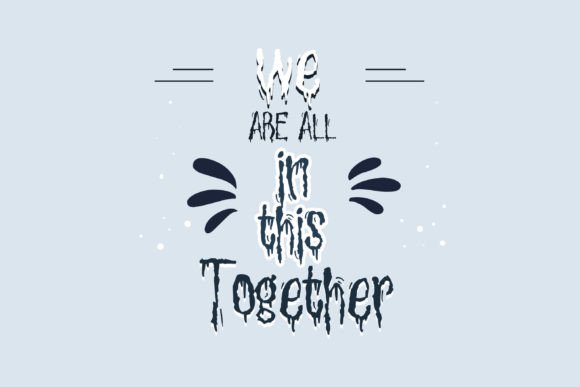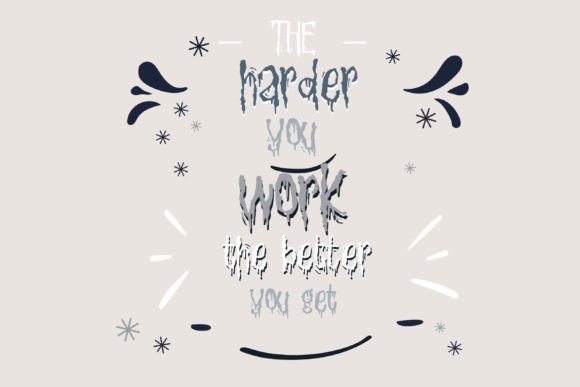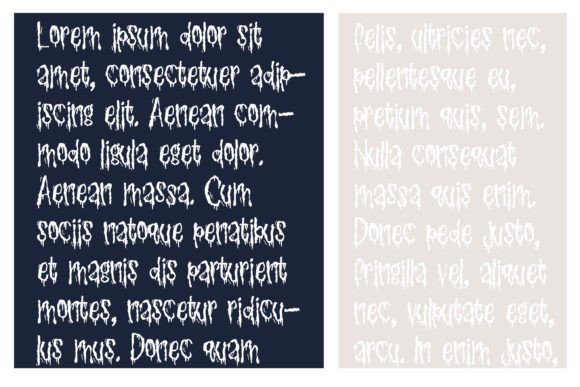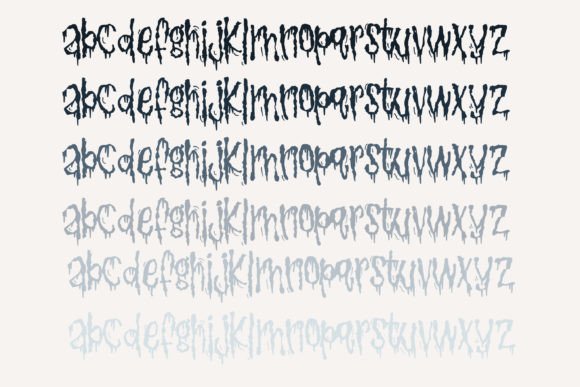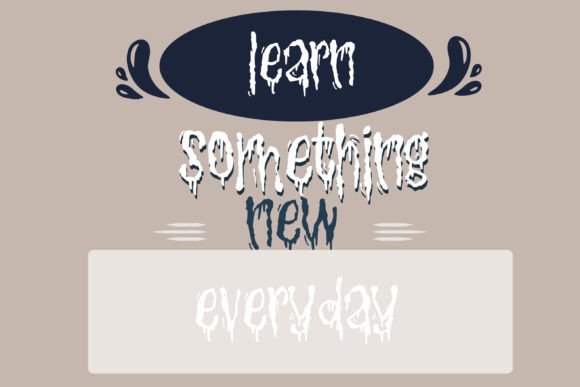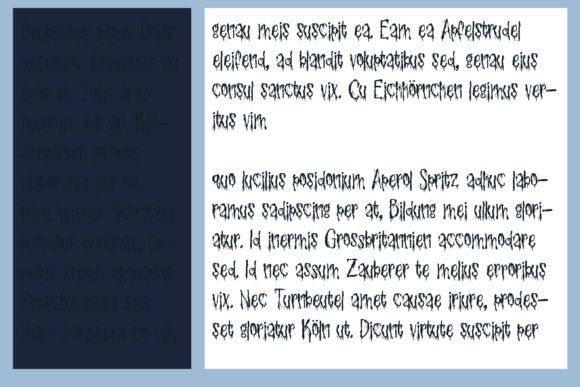
Introducing Chilly Outside Font: Add a Frosty Touch to Your Winter Designs
As the winter season approaches, designers and crafters are on the lookout for unique and captivating fonts to add a touch of chill to their creations. If you’re searching for a font that embodies the essence of winter, look no further than Chilly Outside Font. This cool and distinctive handwritten font is sure to bring a frosty freshness to your designs, making them stand out from the crowd.
The Chilly Outside Font: A Frosty Favorite
Chilly Outside Font is a one-of-a-kind, handwritten font that boasts a “frosty” appearance, perfect for winter-themed designs. Its unique and captivating style is sure to add a touch of magic to your creations, transporting your audience to a winter wonderland. Whether you’re designing holiday cards, winter-themed posters, or frosty-inspired crafts, Chilly Outside Font is the perfect addition to your design toolkit.
Key Features of Chilly Outside Font
- Unique Handwritten Style: Chilly Outside Font features a distinctive handwritten style that sets it apart from other fonts.
- Frosty Appearance: The font’s frosty appearance gives it a cool and refreshing look, perfect for winter designs.
- Versatile: Chilly Outside Font can be used for a wide range of design projects, from holiday cards to winter-themed posters and crafts.
- Easily Readable: Despite its unique style, Chilly Outside Font is easily readable, making it perfect for body text and headlines.
Design Ideas Using Chilly Outside Font
Chilly Outside Font is a versatile font that can be used in a variety of design projects. Here are a few ideas to get you started:
- Winter Holiday Cards: Use Chilly Outside Font to create festive holiday cards that are sure to impress your friends and family.
- Frosty Posters: Create eye-catching posters for winter-themed events or promotions using Chilly Outside Font.
- Crafting Projects: Add a touch of winter wonder to your crafting projects, such as scrapbooking or card making, with Chilly Outside Font.
- Social Media Graphics: Use Chilly Outside Font to create engaging social media graphics that will stand out from the crowd.
Tips for Using Chilly Outside Font
Here are a few tips for using Chilly Outside Font in your designs:
- Experiment with Font Sizes: Play around with different font sizes to create visual interest and hierarchy in your design.
- Pair with Other Fonts: Pair Chilly Outside Font with other fonts to create a unique and interesting contrast.
- Use in Combination with Winter Imagery: Use Chilly Outside Font in combination with winter imagery, such as snowflakes or pinecones, to create a cohesive look.
Chilly Outside Font is a unique and captivating font that is sure to add a frosty touch to your winter designs. With its distinctive handwritten style and frosty appearance, it’s the perfect addition to your design toolkit. Whether you’re a designer or crafter, Chilly Outside Font is a must-have for any winter-themed project. So why wait? Download Chilly Outside Font today and start creating your own winter wonderland designs!